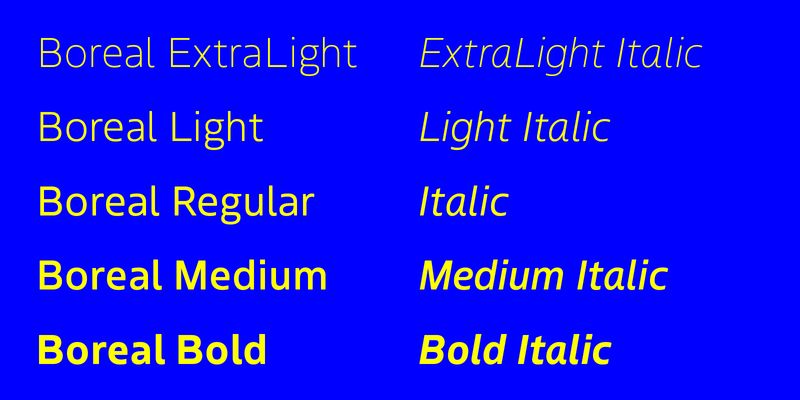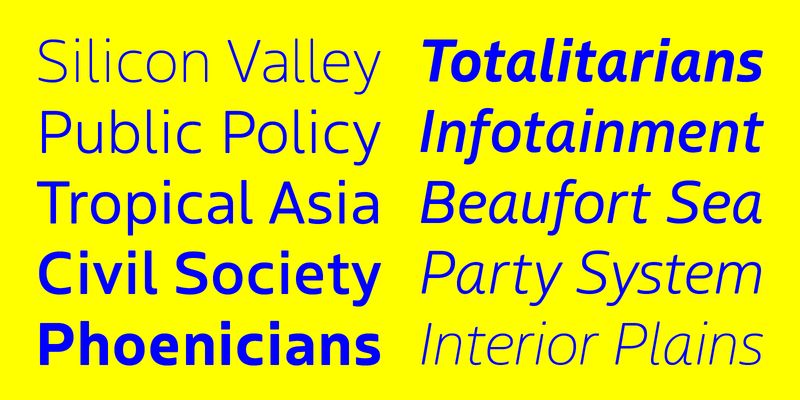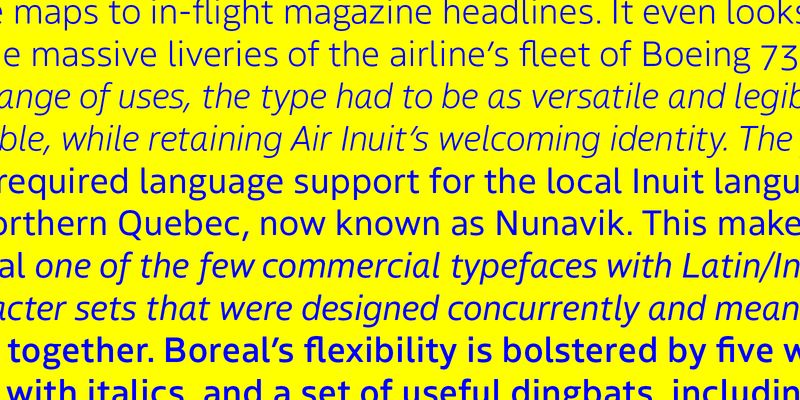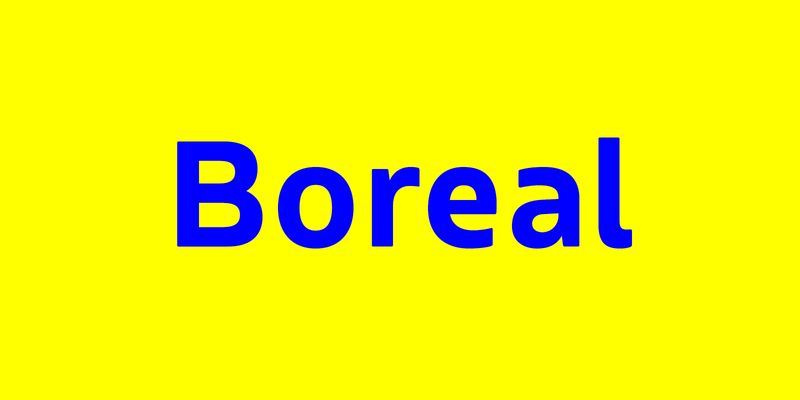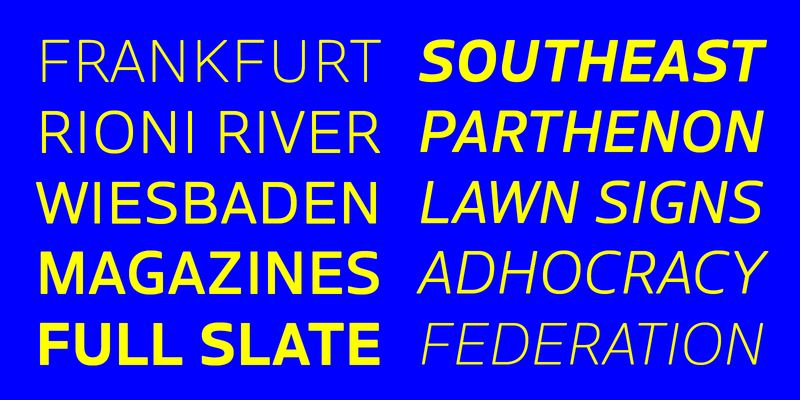
At the drawing board, a typeface may be optimized for branding, signage, or publication design, but its true success is proven
in real-world use. Boreal is a crisp and congenial sans serif that has already been put through its paces.